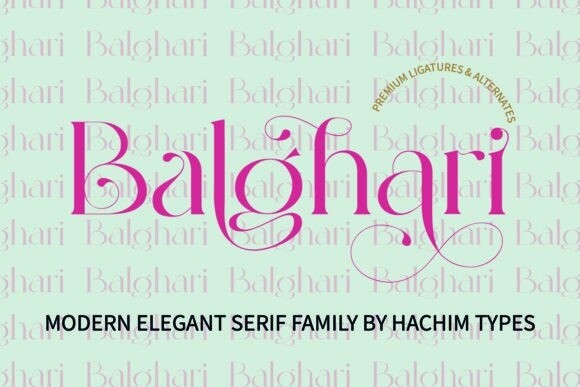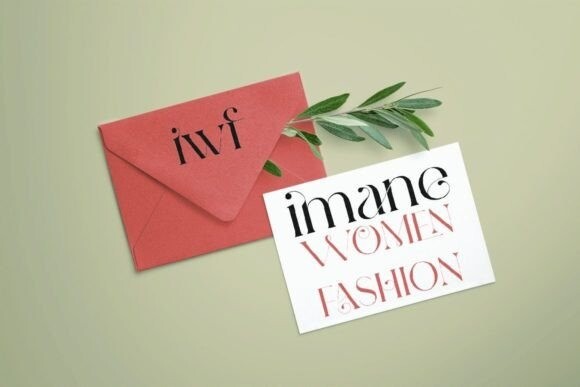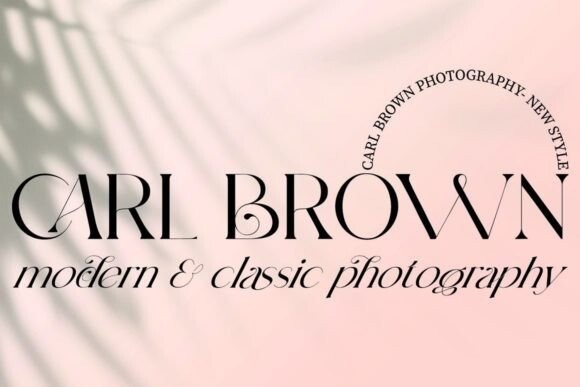
Balghari Font
Balghari font exudes luxury and sophistication with its sleek and refined letterforms. Its high-contrast strokes and exquisite serifs create a sense of glamour and prestige, perfect for any project that requires a touch of elegance and refinement. This font is a true statement of style and class.